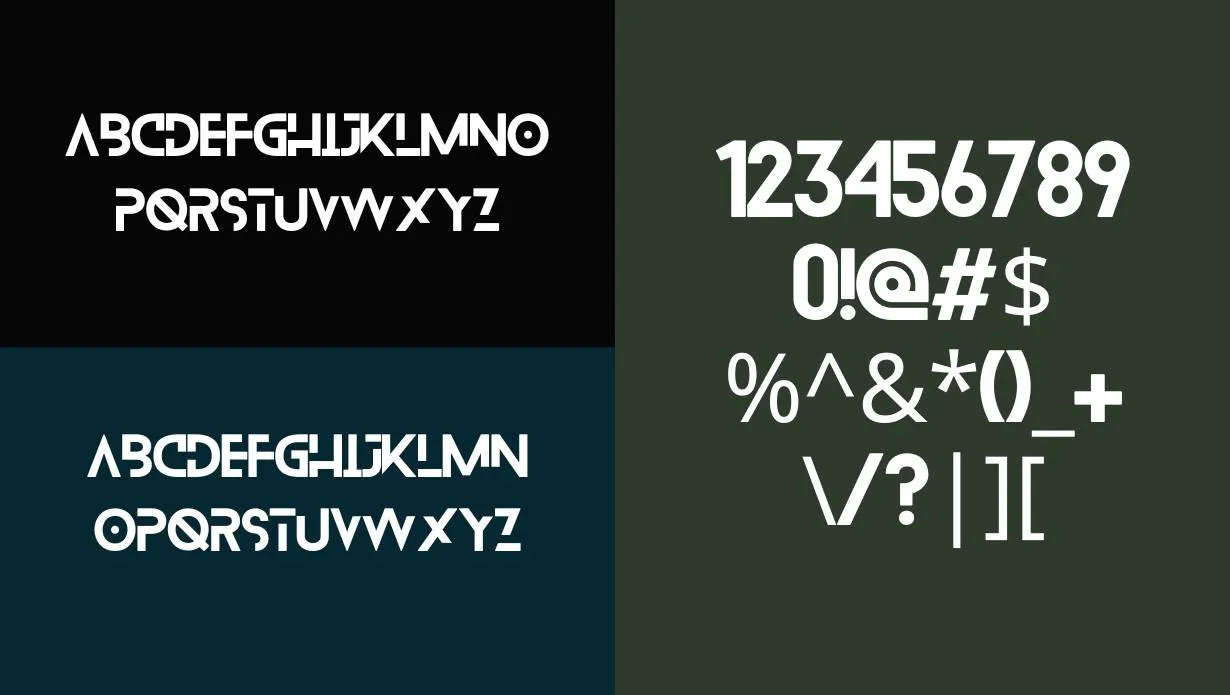
Blanka Font is a versatile and clean typeface that suits a wide range of design applications. Its simplicity and readability make it an excellent choice for projects in need of a straightforward and modern look.
Whether you’re designing a website, packaging, or marketing materials, Blanka Font delivers a polished and contemporary appearance.
Blanka Font Family
| Name | Blanka Font |
| Designer | Emmeran Richard |